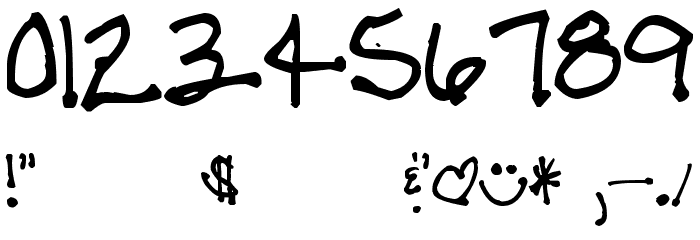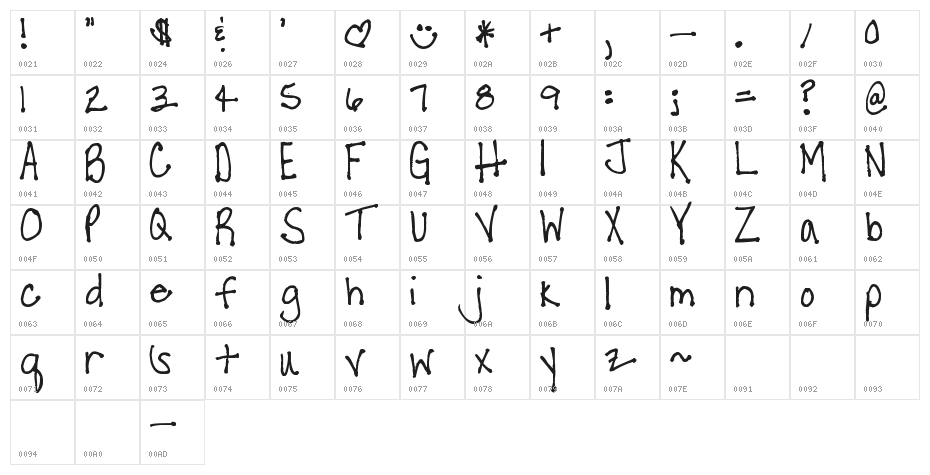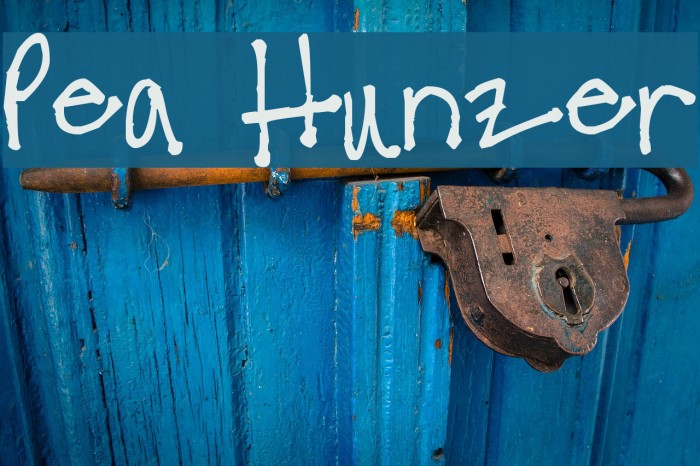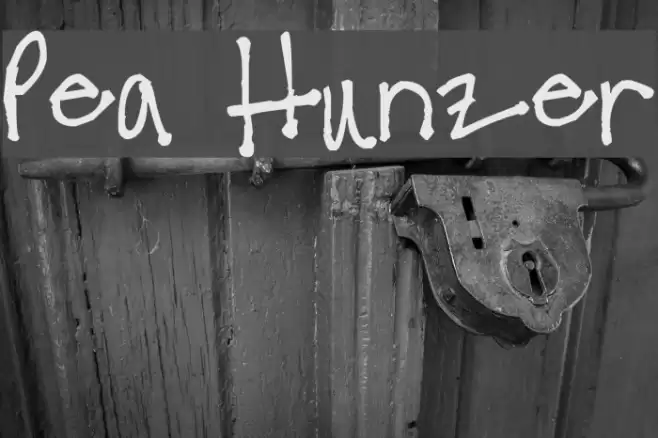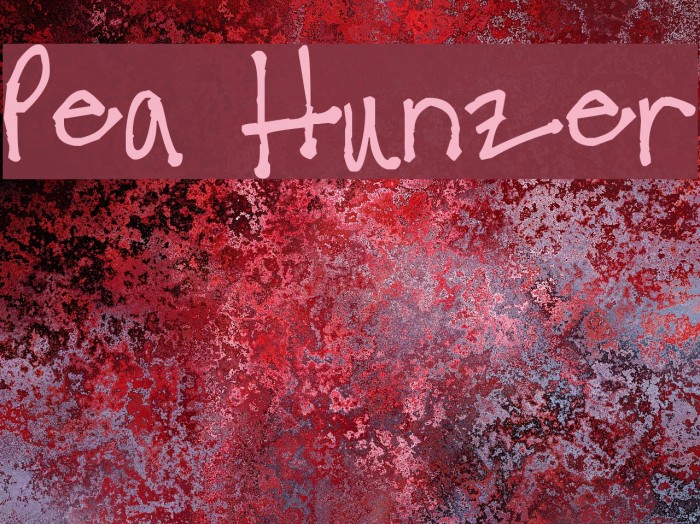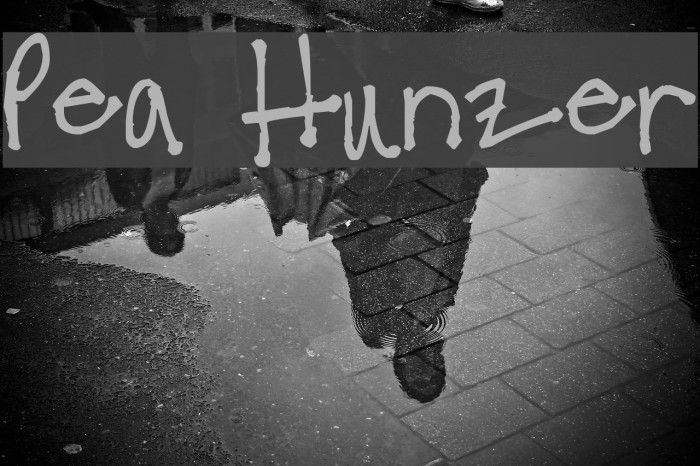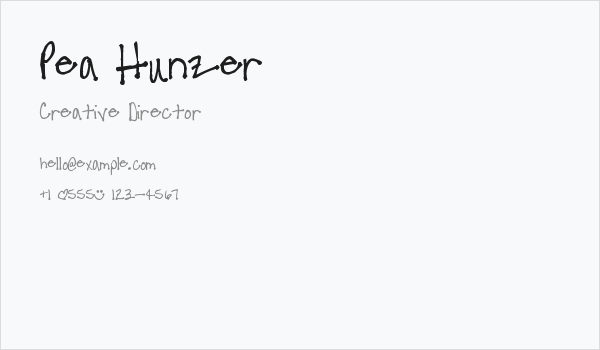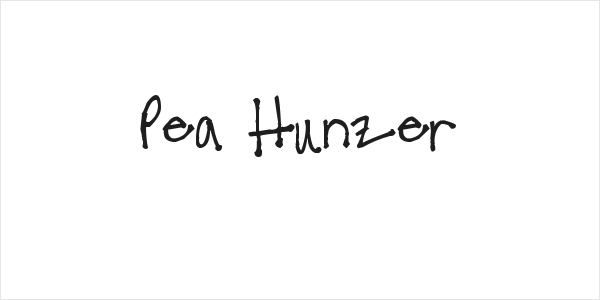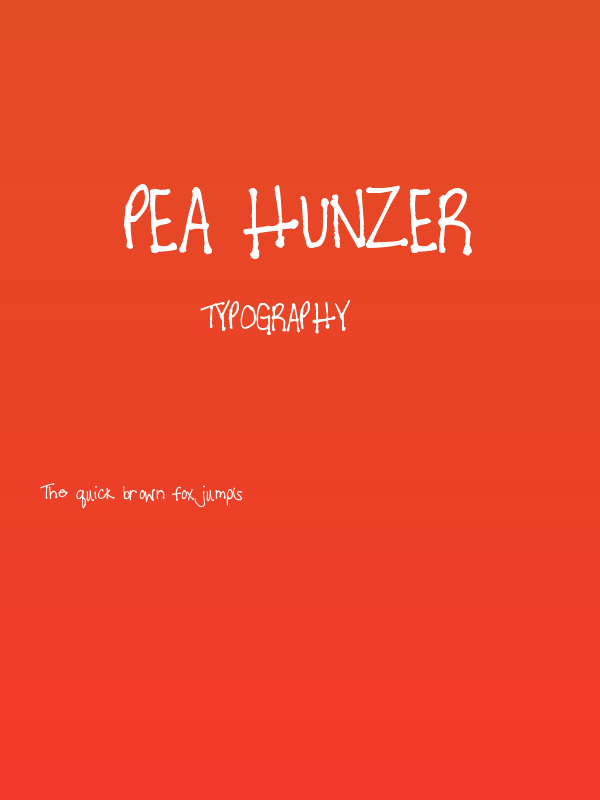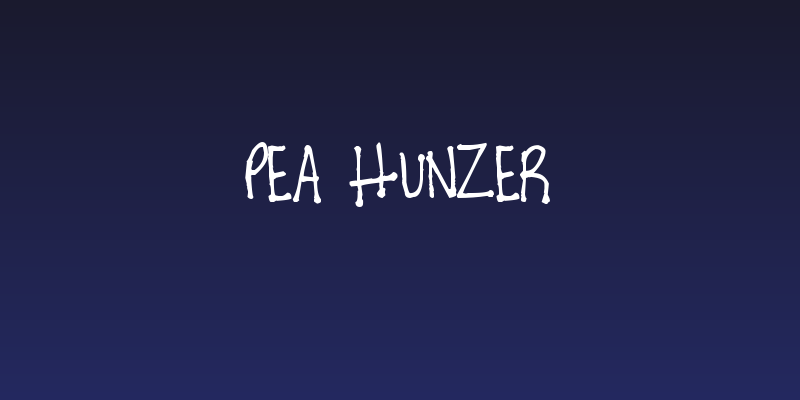
Pea Hunzer Font
Pea Hunzer Description
This playful and whimsical font features a handwritten style with a casual and informal appearance. The letters are unevenly sized and spaced, giving it a lively and dynamic feel. The strokes are bold and slightly irregular, adding to the font's charm and personality. It includes both uppercase and lowercase letters, numbers, and a variety of special characters, making it versatile for creative projects. The font's unique style is reminiscent of doodles or notes jotted down quickly, perfect for designs that aim to convey a sense of fun and spontaneity.
Use CaseLogos, Headlines, Informal Text
Proposed ProjectsIdeal for greeting cards, children's book illustrations, playful branding, and casual invitations.